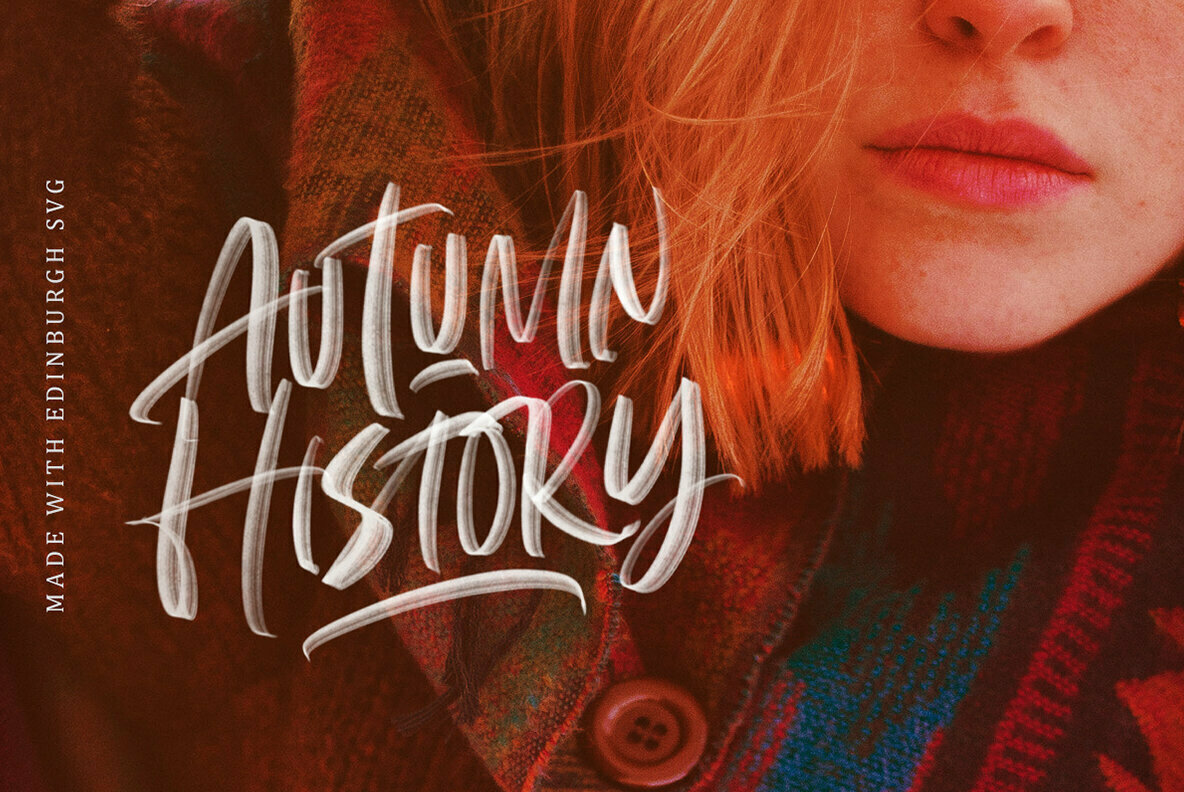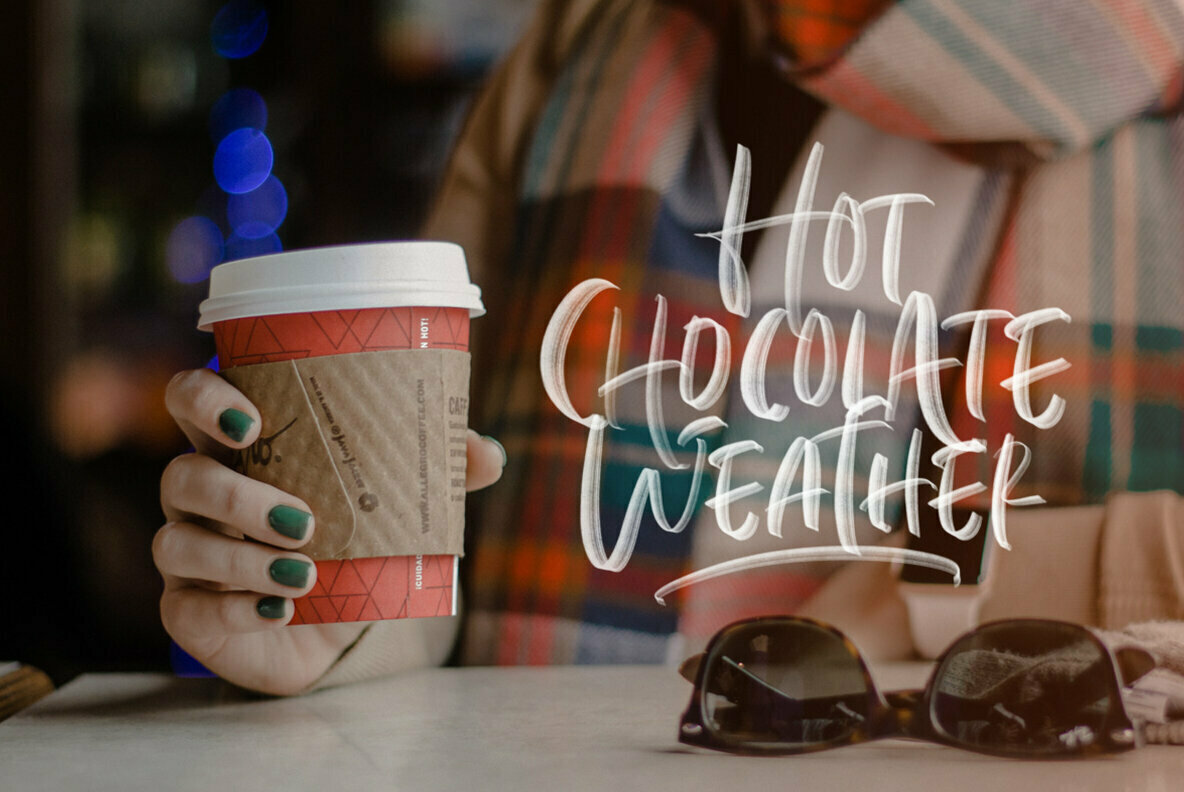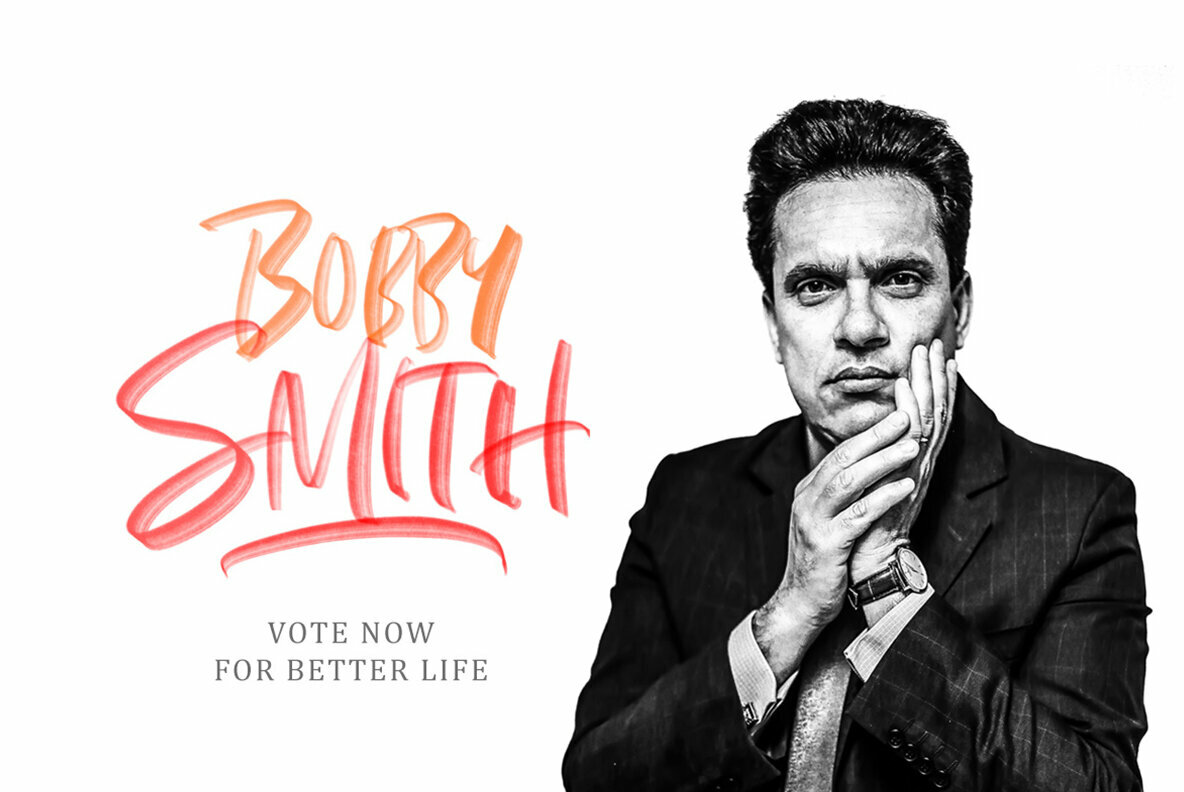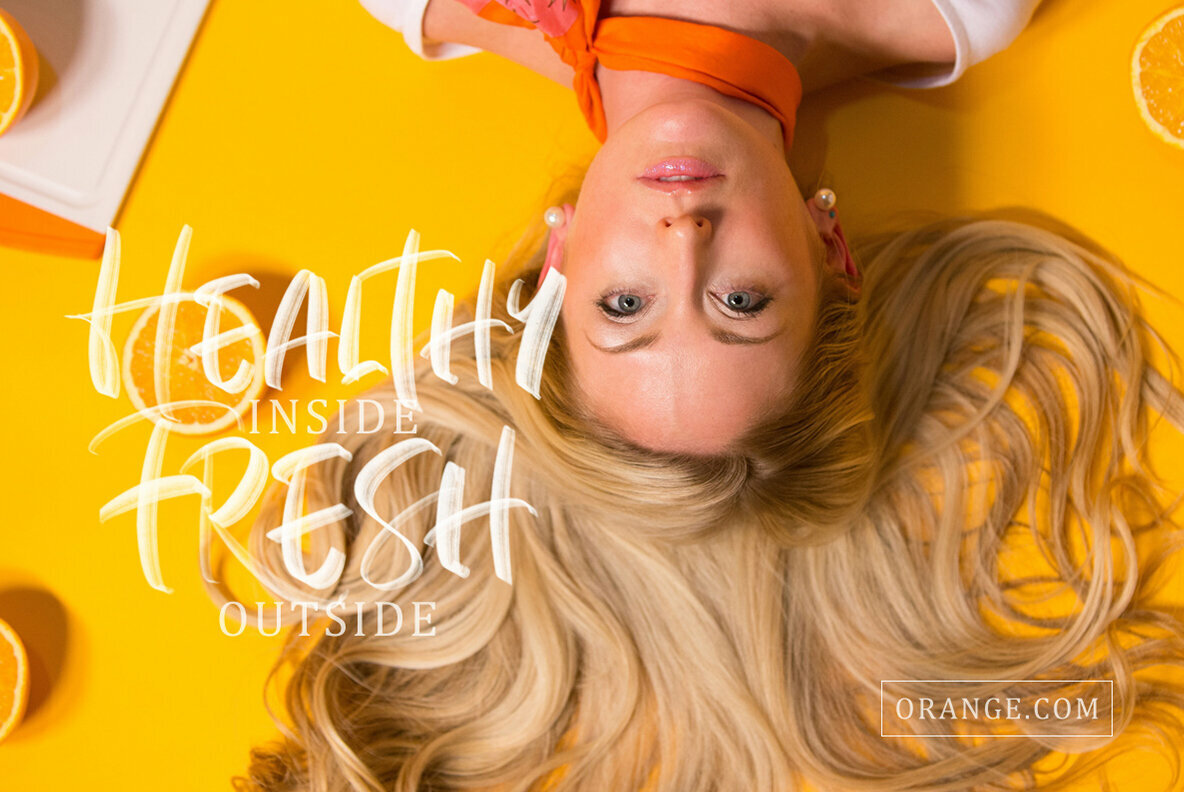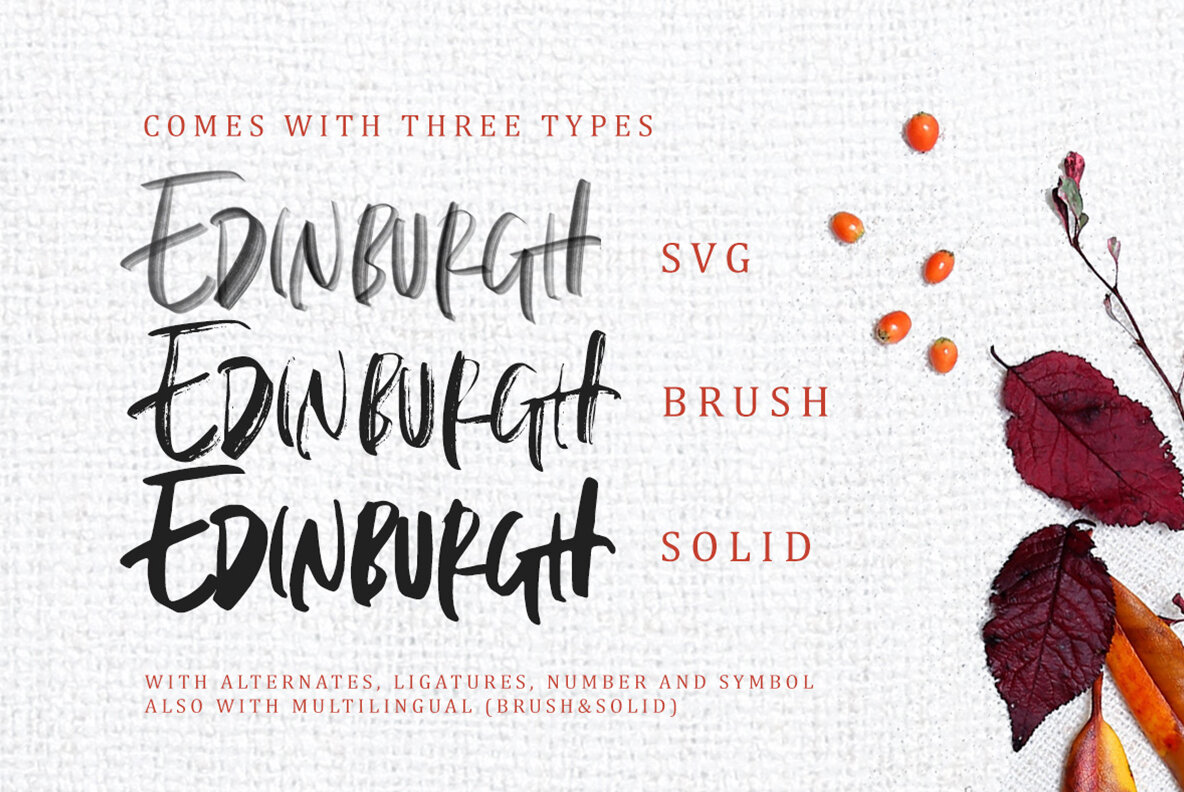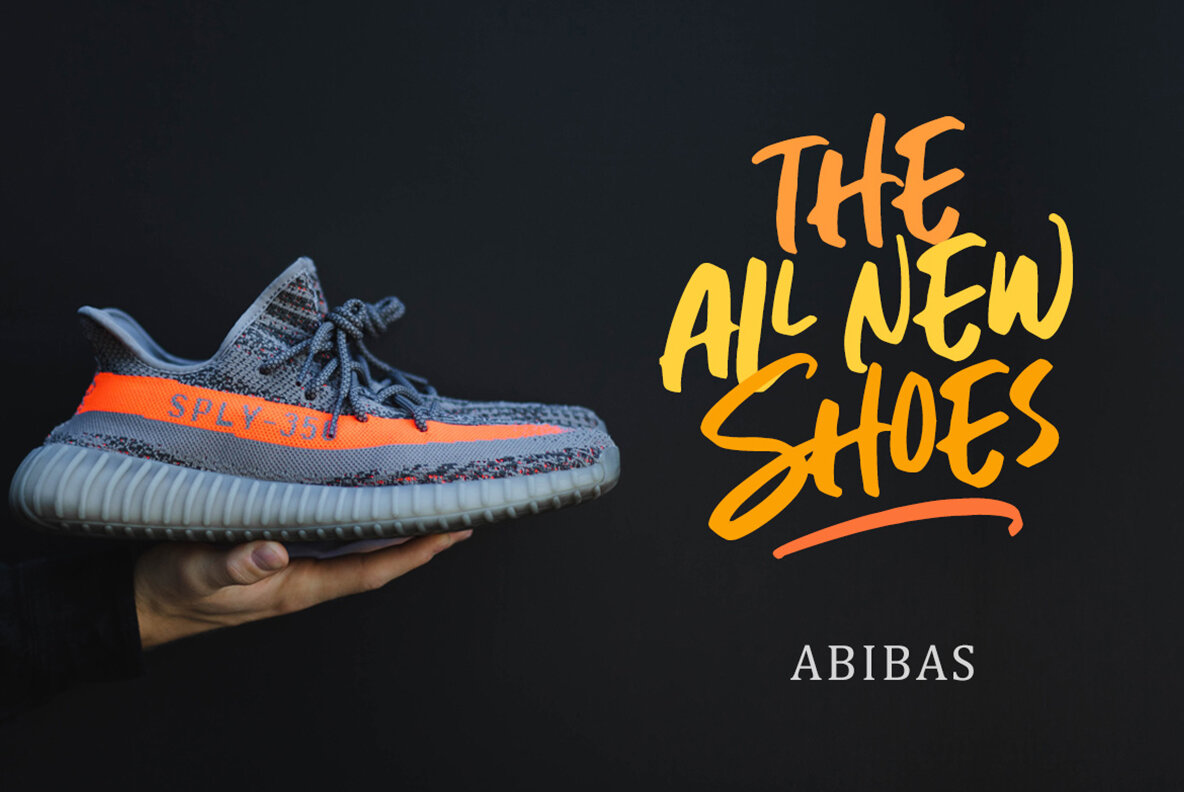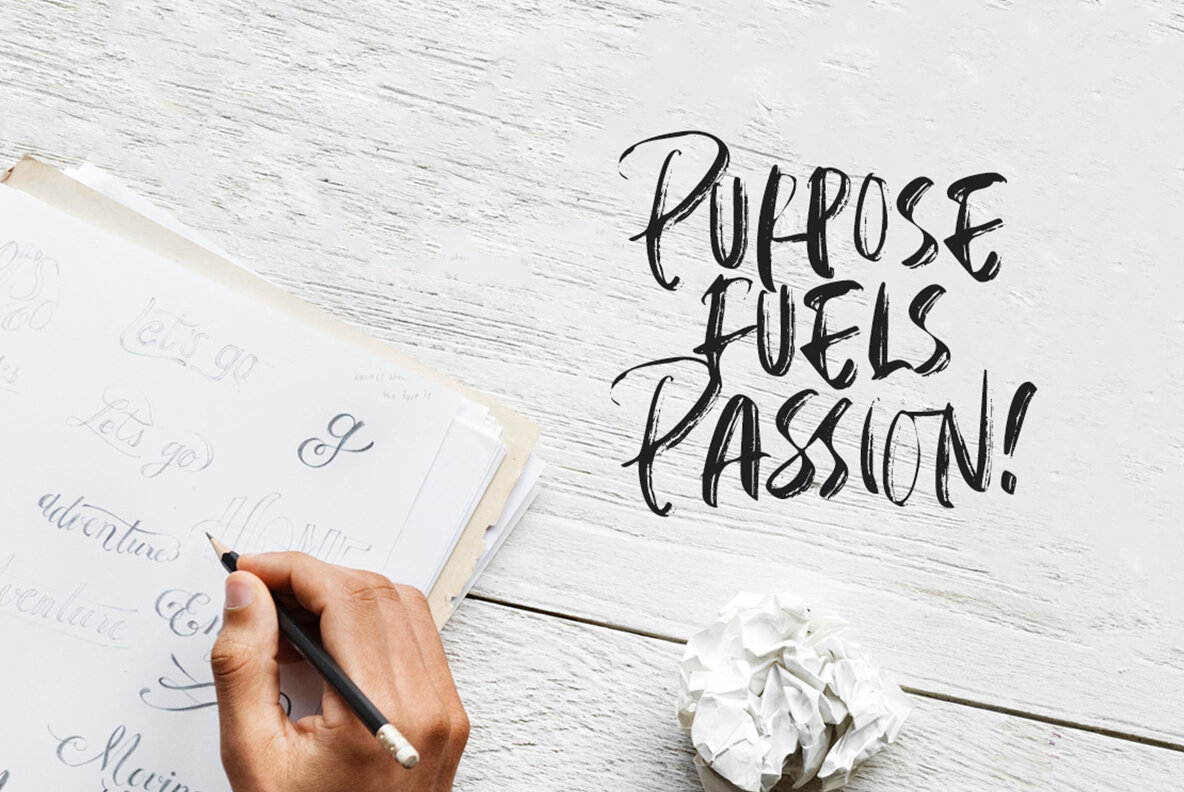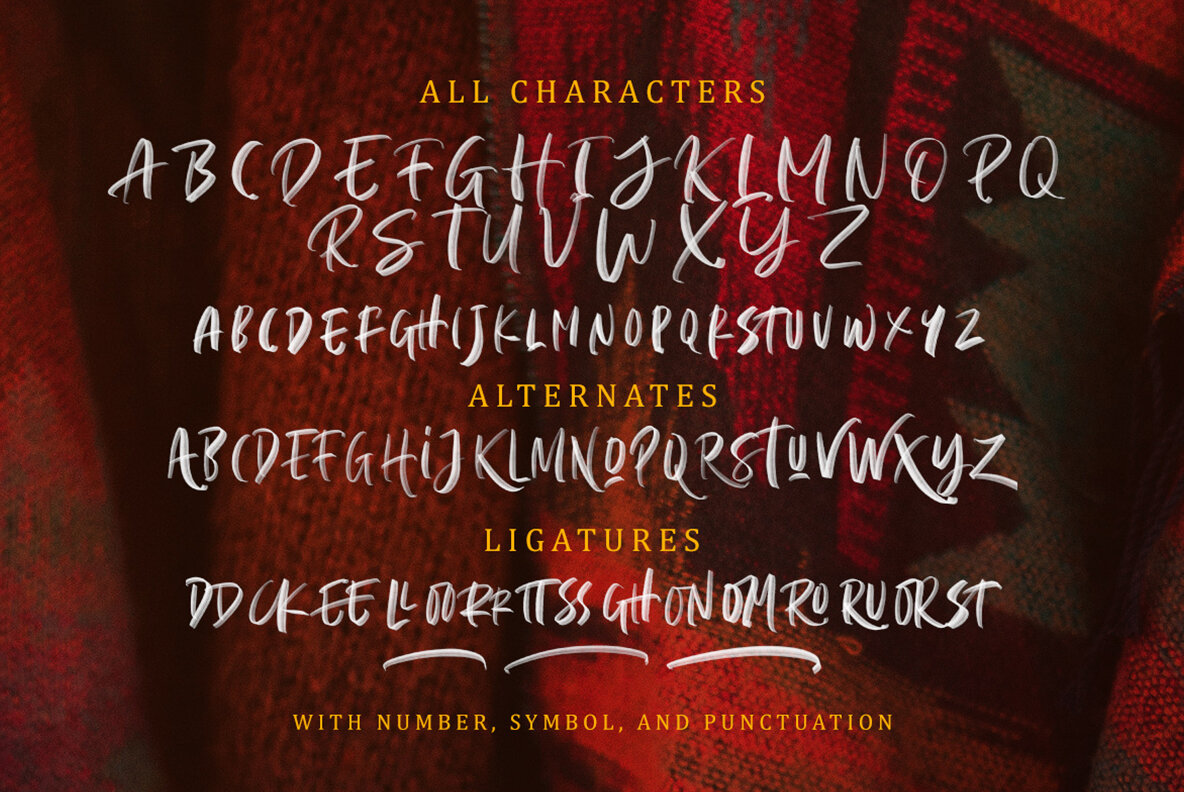
Edinburgh SVG Font
Edinburgh invites you into the world of handcrafted typography with its unique SVG format. Designed to mimic the nuances of realistic handwriting, this font offers a lifelike touch to your creative projects. Whether you're crafting promotional materials or seeking a handmade aesthetic, Edinburgh delivers exceptional detail through its high-resolution bitmap structure. While designed to capitalize on the robust capabilities of SVG, Edinburgh is versatile enough to fit into your workflow with ease. For those working within Photoshop CC 2017 or Illustrator CC 2018 and above, you'll fully appreciate the ability to modify font colors via layer styles. This functionality extends Edinburgh's use beyond static applications, making it a dynamic choice for modern designers.Edinburgh: Authentic SVG Handwritten Typeface